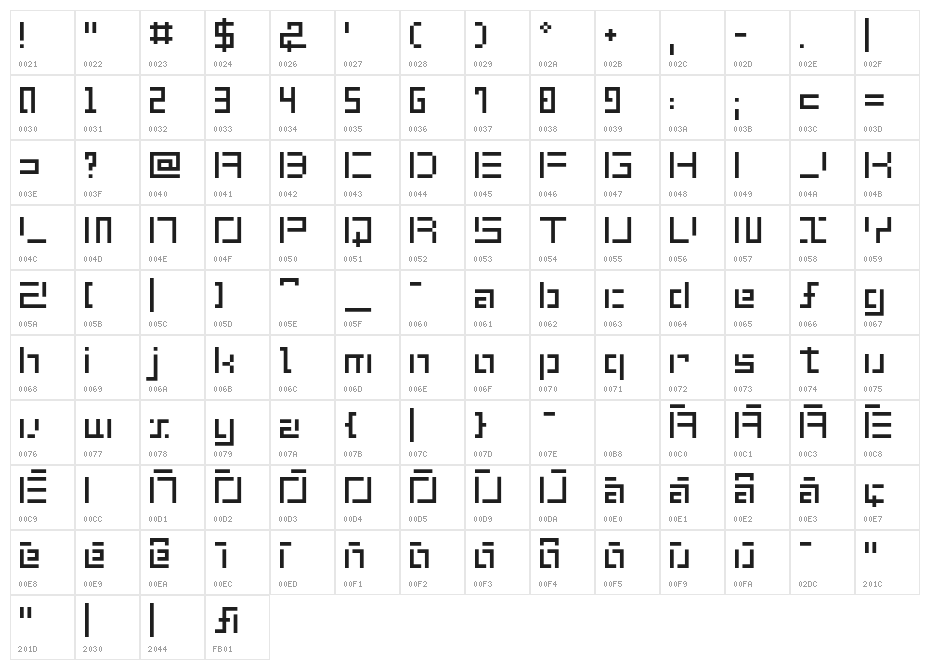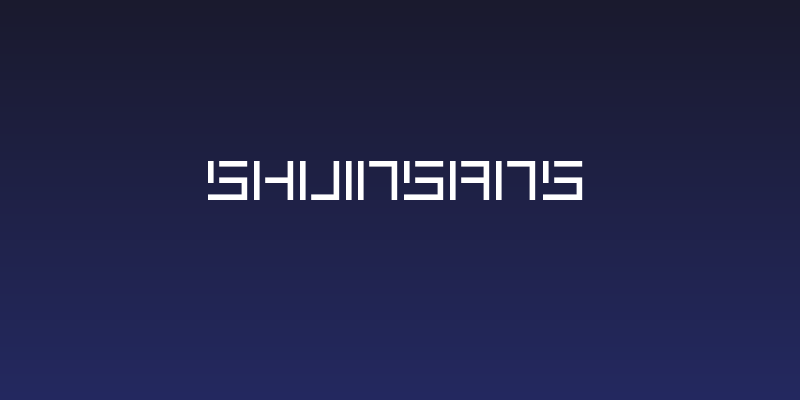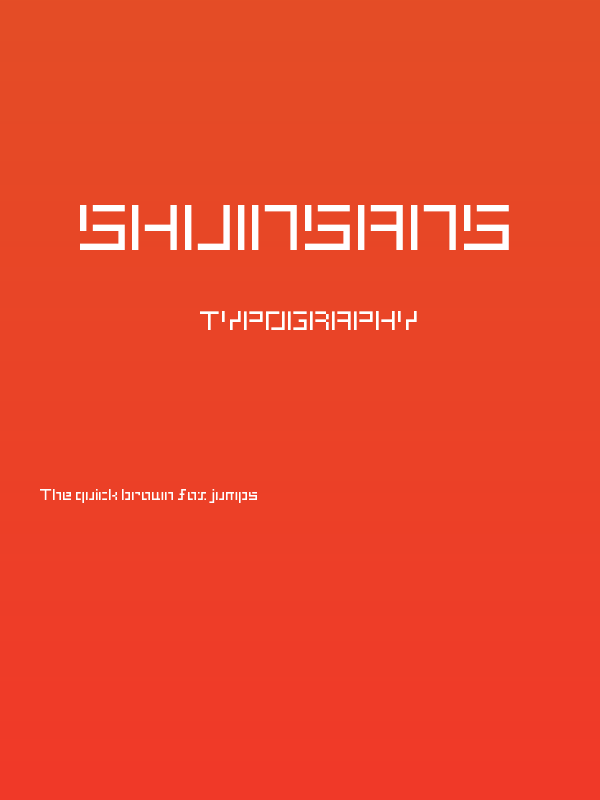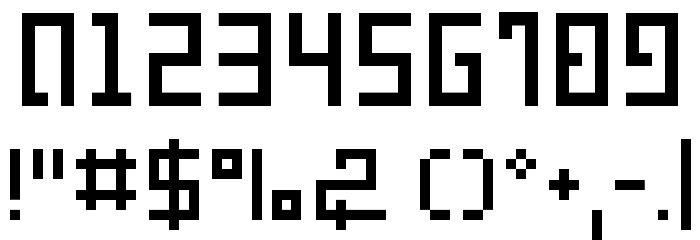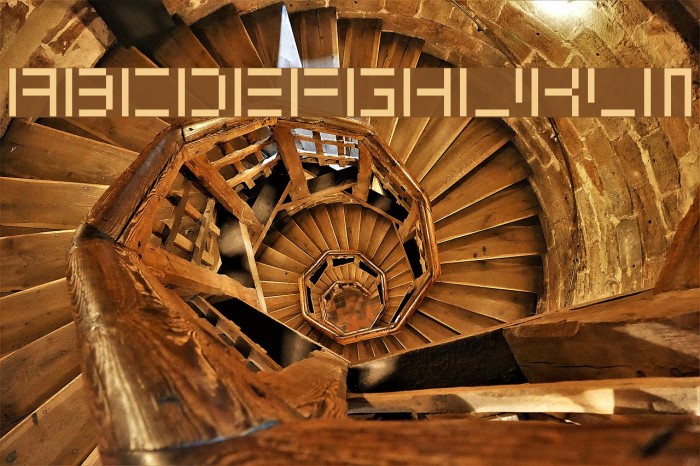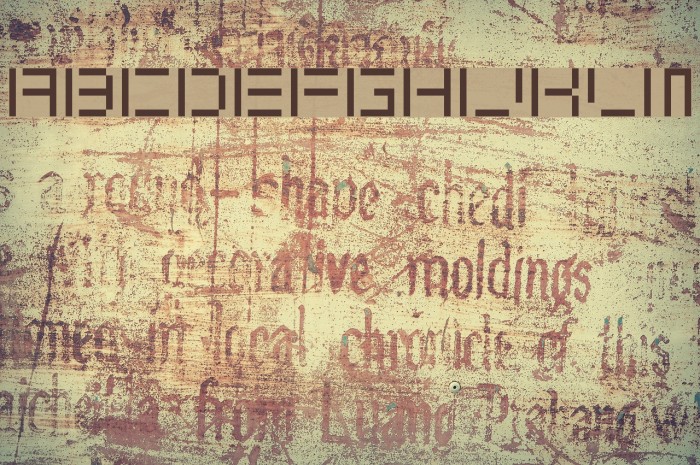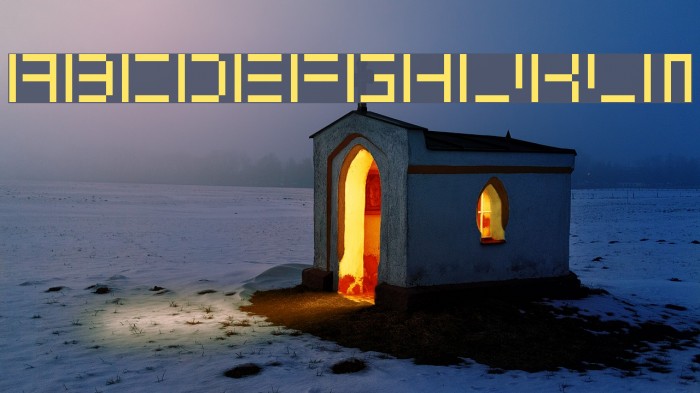
ShuinSans Font
ShuinSans Description
This font features a geometric, grid-like design with a distinctly modern and digital aesthetic. Each character is constructed with uniform line thickness, creating a cohesive and structured appearance. The uppercase and lowercase letters maintain a consistent height, contributing to a monospaced feel. The numerals and special characters follow the same design principles, ensuring visual harmony across all glyphs. The font's blocky, pixelated style evokes a retro, tech-inspired vibe, making it suitable for projects that require a futuristic or digital theme.
| Use Case | Logos, Headlines, Digital interfaces |
| Proposed Projects | Ideal for tech-related branding, digital art, video game interfaces, and retro-themed designs. |